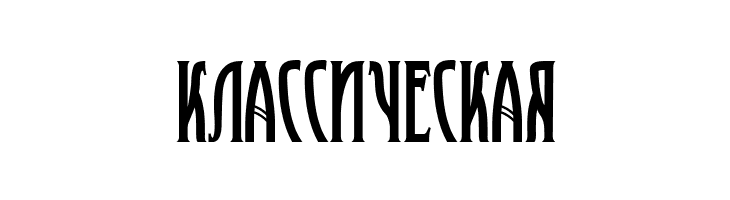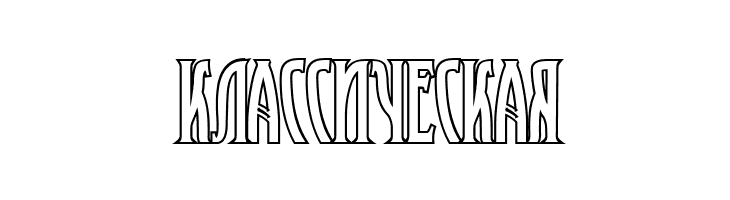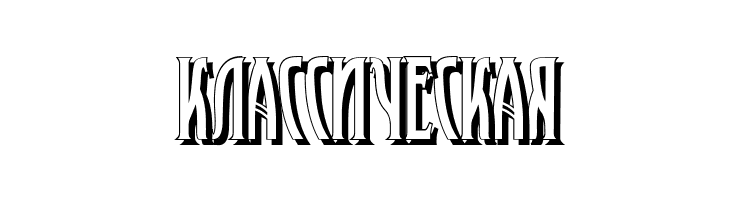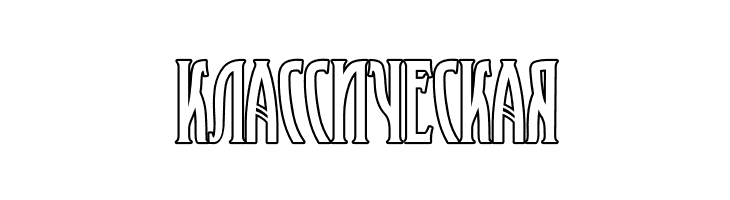
A bold, narrow font with elongated characters and a modern, artistic style.
A bold, outlined font with art deco influences, featuring tall, narrow characters.
A bold, decorative font with a shadow effect and angular serifs.
An elegant, outlined font with tall, narrow characters and a modern aesthetic.